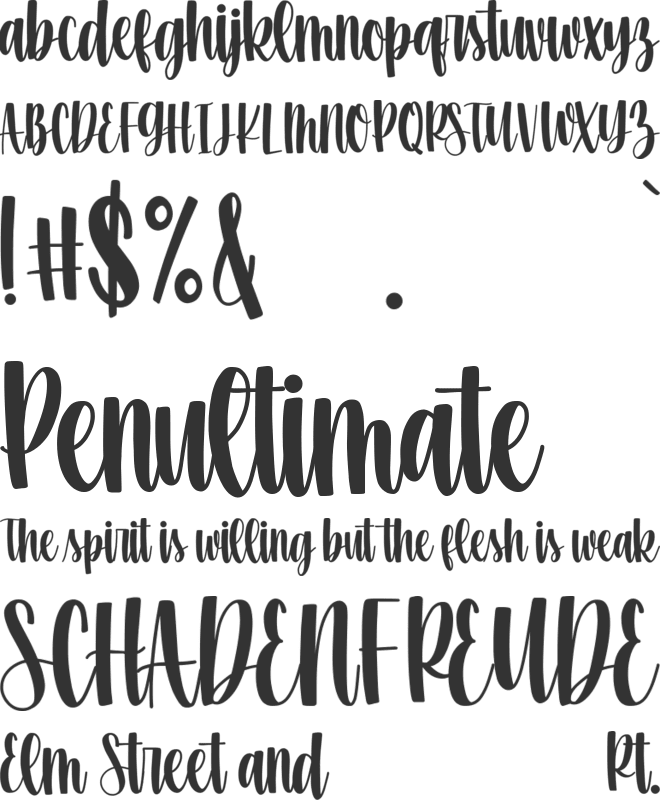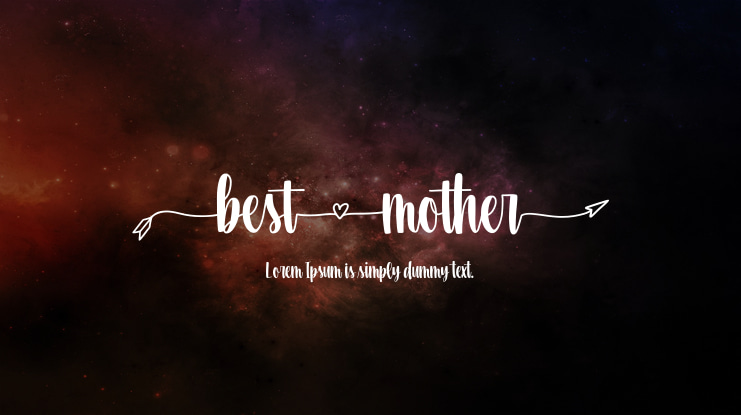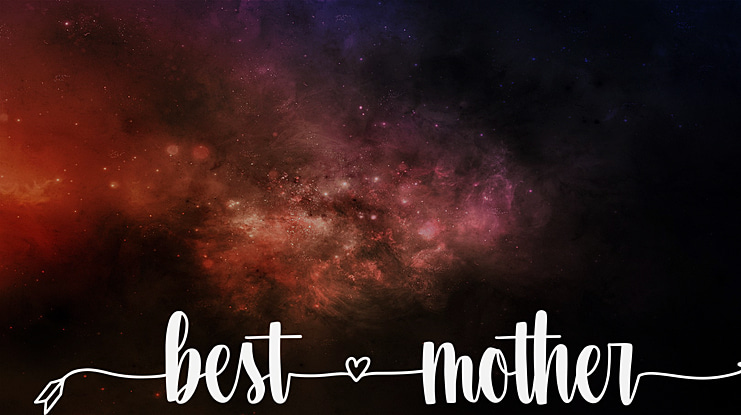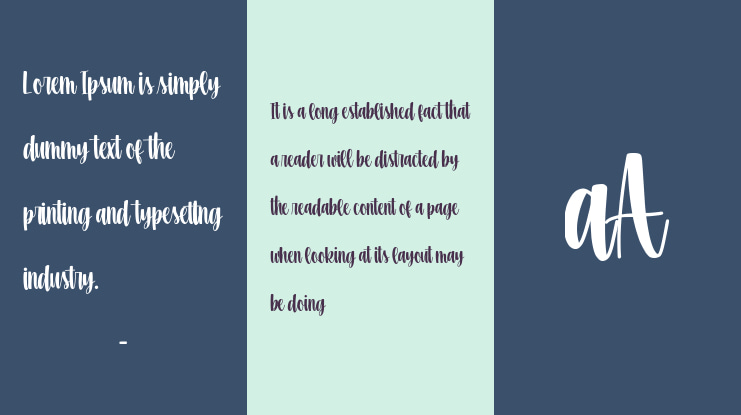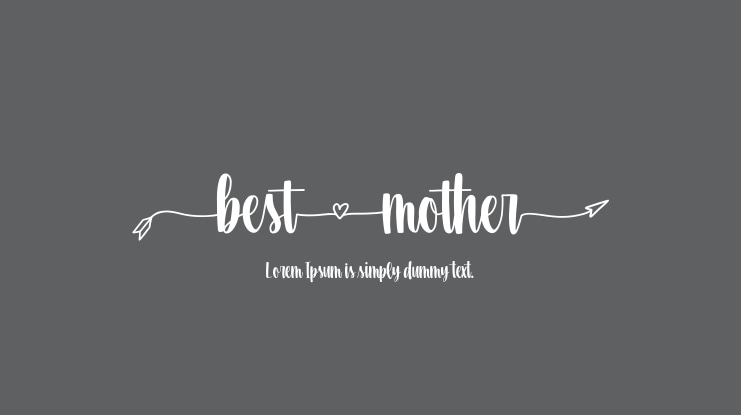
bestmother Font
Best Mother is a beautiful script font with love-themed arrow swashes.
It is one of the modern calligraphy script fonts that comes with very beautiful character changes.
Best Mother feels incredibly elegant and flowing. It looks stunning on wedding invitations, thank you cards, quotes, greeting cards, logos, business cards and every other design which needs a handwritten touch. It features a varying baseline, smooth lines, gorgeous glyphs and stunning alternates.
Fall in love with its incredibly versatile style and use it to create spectacular designs!